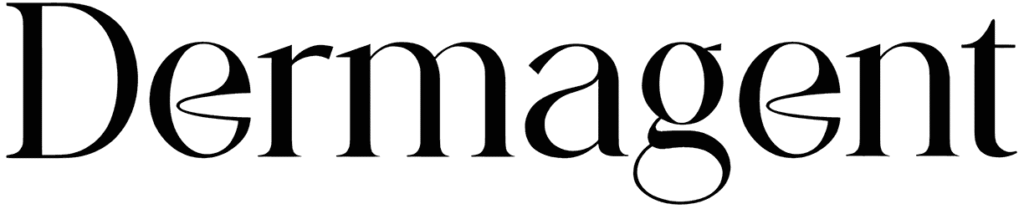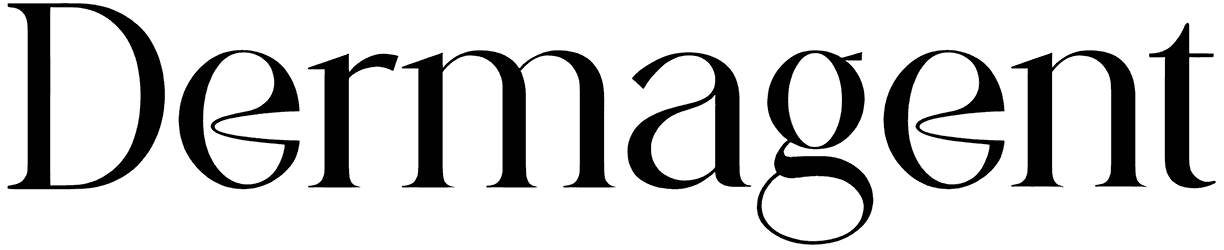
Dermagent Font
Turn every branding design of yours into a masterpiece with the chic letters of Dermagent and spoil your clients better than ever. Before you know it, you’re under the spell of its super fancy letters, hyper-focused on what this serif font has to say.
Take this chance to apply Dermagent and its charming characters to your business cards, magazine covers, and websites about fashion, art, or luxury products. You’re going to see why you need more elegant fonts like this.